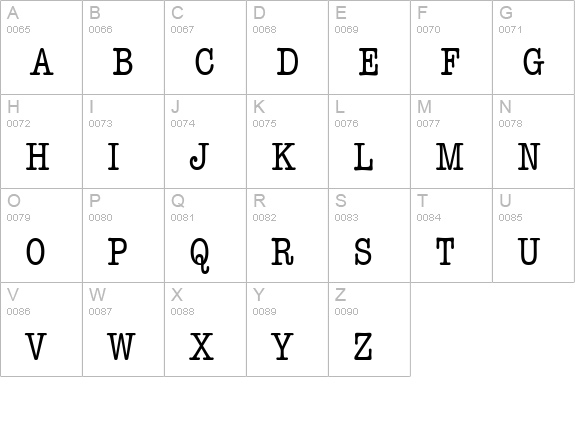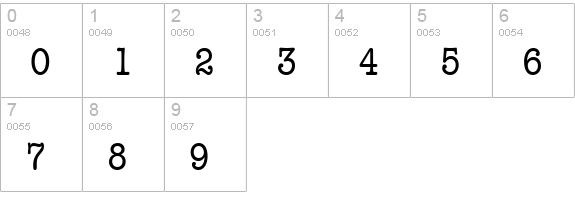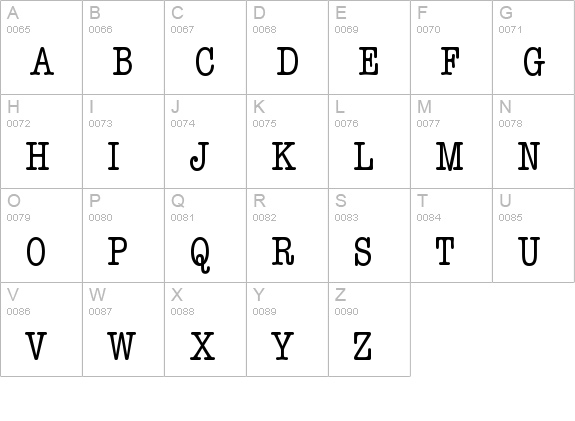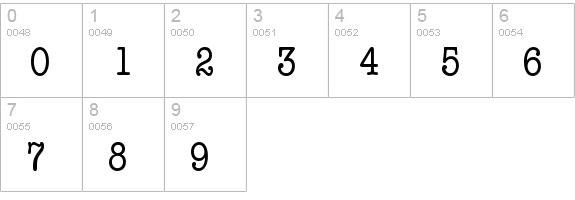
Keyboard CondensedAlt SSi Condensed Alternate Font Details
Keyboard CondensedAlt SSi Condensed Alternate is a distinctive, condensed-width variant in the Keyboard typeface family \xE2\x80\x94 well suited to design and typography projects.
Keyboard CondensedAlt SSi Condensed Alternate font is a sleek and stylish typeface that adds a touch of elegance to any design project. With its condensed and alternate characters, this font is perfect for creating eye-catching headlines, logos, and branding materials. The condensed nature of this font allows for maximum impact in a limited space, making it ideal for use in advertising, packaging, and web design. Its clean lines and modern aesthetic give a professional and polished look to any text. One of the best things about Keyboard CondensedAlt SSi Condensed Alternate font is that it is available for free. You can easily download this font from FontsMarket.com, a reliable source for high-quality and diverse fonts. Whether you are a professional designer or a hobbyist, having access to free fonts like Keyboard CondensedAlt SSi Condensed Alternate font can greatly enhance your creative projects without putting a dent in your budget. So why wait? Download Keyboard CondensedAlt SSi Condensed Alternate font today and add a touch of sophistication to your designs. With its versatility and elegance, this font is sure to become a go-to choice for all your typographic needs. Don't miss out on this amazing opportunity to elevate your design game with a free font that is both stylish and functional.